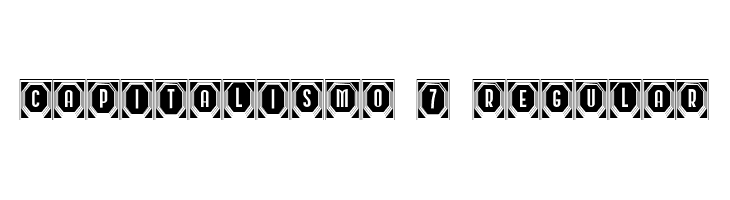
A bold, geometric font with characters enclosed in octagonal frames, offering a striking visual impact.
A bold, geometric font with characters enclosed in decorative octagonal frames.
A bold, decorative font with characters enclosed in geometric octagonal frames.
A bold, geometric font with decorative octagonal borders, reminiscent of Art Deco style.
A bold Art Deco style font with geometric shapes and strong vertical lines.